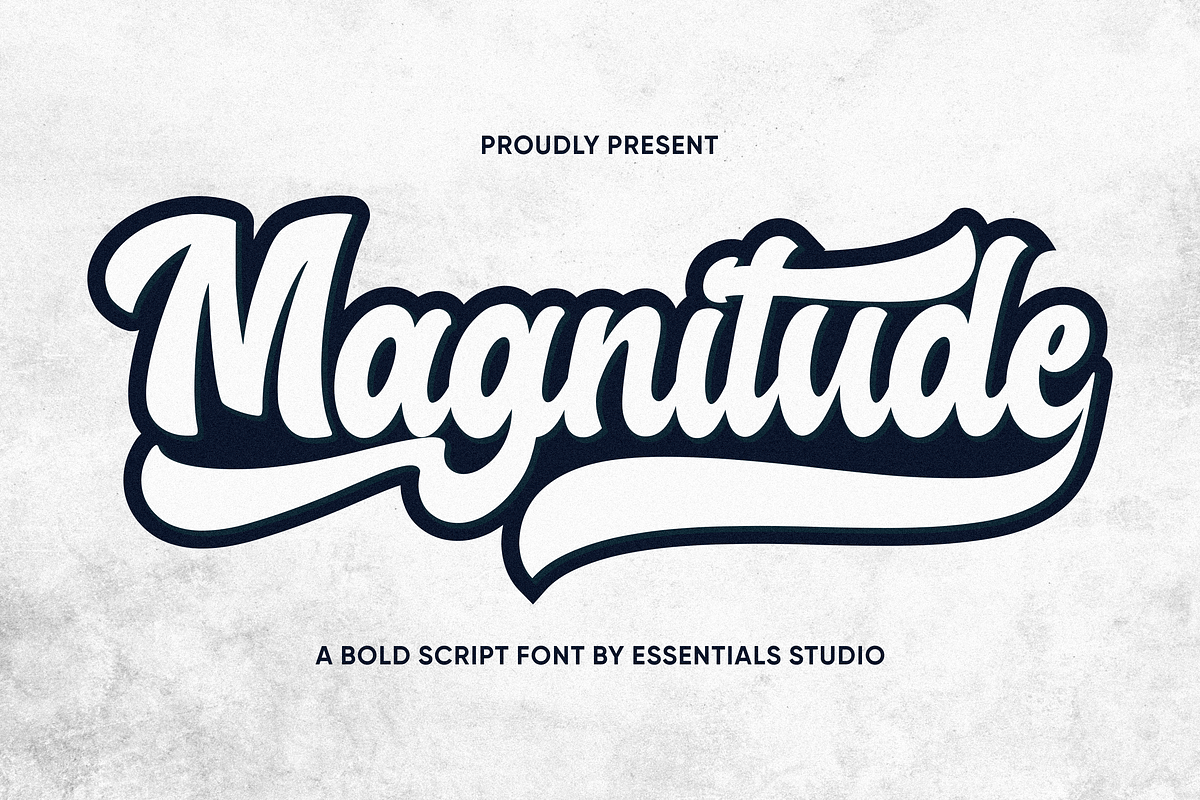
Magnitude Bold Script Font Free Download is a dynamic, high-energy script typeface that blends the elegance of cursive with the power of bold lettering. With thick strokes, smooth connections, and a confident personality, this font is perfect for logos, branding, apparel, signage, and social media graphics that need to stand out.
Designed to capture attention while remaining stylish and legible, Magnitude is great for projects that demand impact without sacrificing finesse. Its handcrafted feel adds an authentic, personal touch—ideal for creative entrepreneurs, lifestyle brands, and bold product packaging.
Whether you’re designing a powerful headline or a custom signature, this font delivers strength and charm in equal measure.